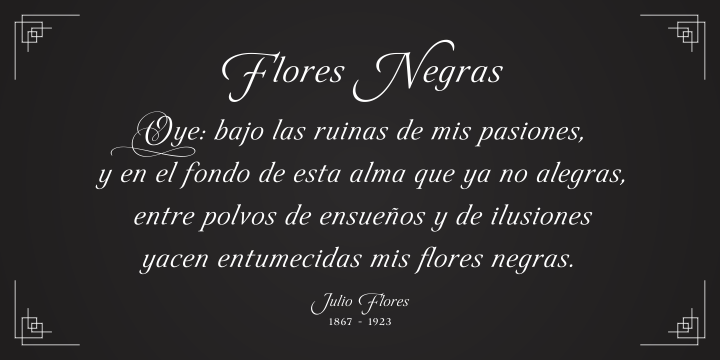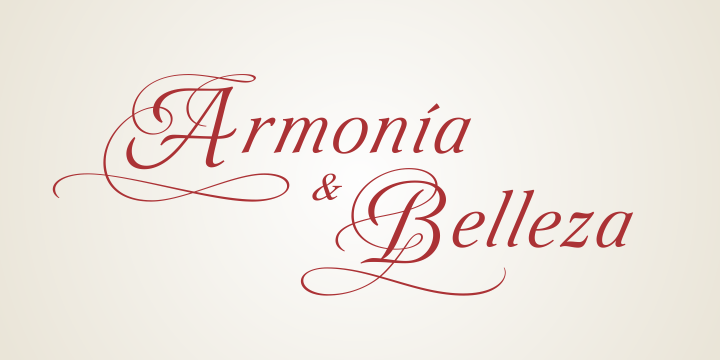
Eterea LC Family Font: Elevate Your Designs with Elegance and Creativity
In the world of typography, a font can make or break a design. For those who value elegance, creativity, and versatility, the Eterea LC Family Font is a treasure trove of possibilities. This beautiful, elegant typeface family is designed to inspire and empower designers, crafters, and artists to push the boundaries of their imagination.
What is Eterea LC Family Font?
Eterea LC is a stunning typeface family that boasts beautiful swashes, making it perfect for a wide range of applications, from headings and logos to posters, invitations, book covers, and more. Its elegant design and creative flair make it an ideal choice for those who want to add a touch of sophistication and whimsy to their work.
Key Features of Eterea LC Family Font
- Elegant Design: Eterea LC features a beautiful, elegant design that exudes sophistication and refinement.
- Beautiful Swashes: The font comes with gorgeous swashes that add a creative touch to any design.
- Versatile: Eterea LC can be used for various purposes, including headings, logos, posters, invitations, book covers, and more.
- Perfect for Creative Projects: This font is ideal for designers, crafters, and artists who want to add a touch of elegance and creativity to their work.
- Unique and Creative: Eterea LC offers a unique and creative design that will set your work apart from the rest.
- Elegant and Sophisticated: The font’s elegant design and swashes add a touch of sophistication to any design.
- Versatile and Flexible: Eterea LC can be used for a wide range of applications, making it a valuable addition to your font library.
In conclusion, the Eterea LC Family Font is a beautiful, elegant typeface family that offers a world of creative possibilities. With its stunning design, beautiful swashes, and versatility, it’s perfect for designers, crafters, and artists who want to elevate their work and add a touch of sophistication and whimsy. Whether you’re creating headings, logos, posters, invitations, or book covers, Eterea LC is the perfect choice for those who value elegance, creativity, and flexibility.